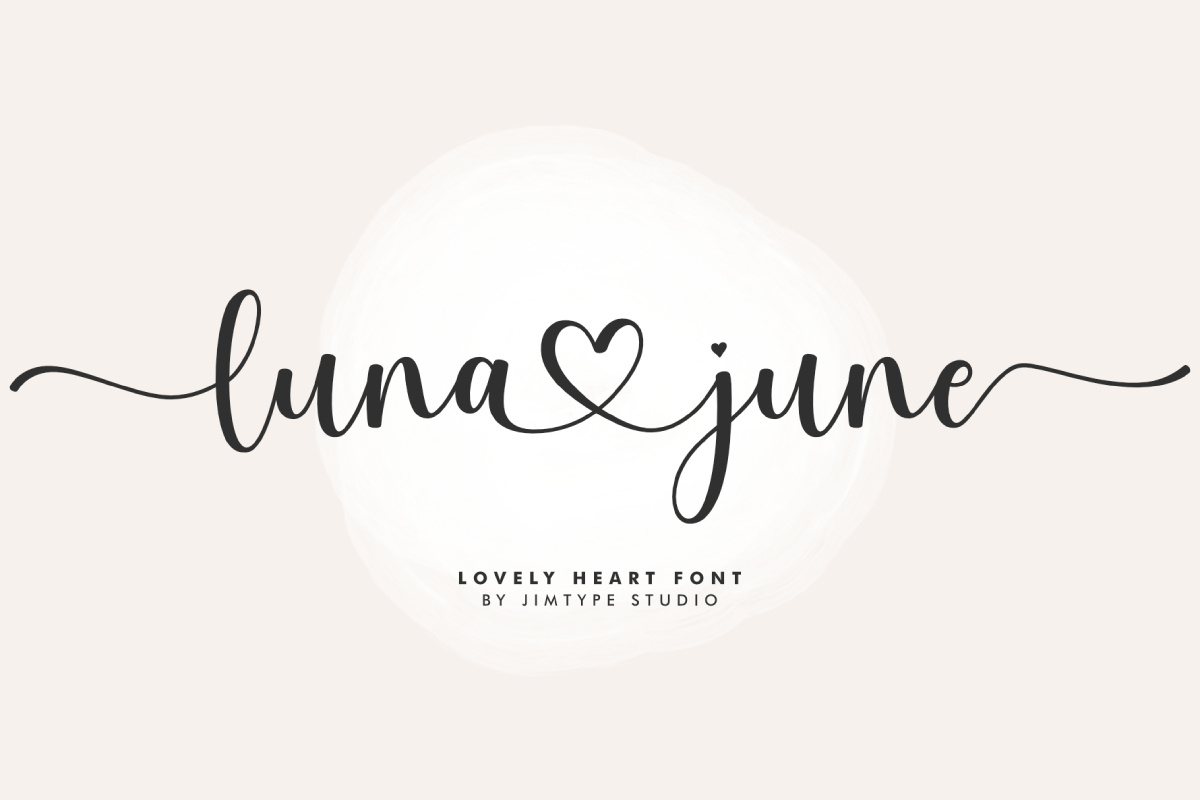
Luna June - Wedding Branding Font
Luna June Font
π Say hello to Luna June! β¨
A sweet, lovely, and modern calligraphy font with charming heart connections β perfect for wedding invitations, logos, branding, save-the-date cards, watermarks, and all things feminine! π
Complete with uppercase & lowercase letters, numbers, punctuation, ligatures, and adorable heart details, Luna June brings romantic elegance to every project. π